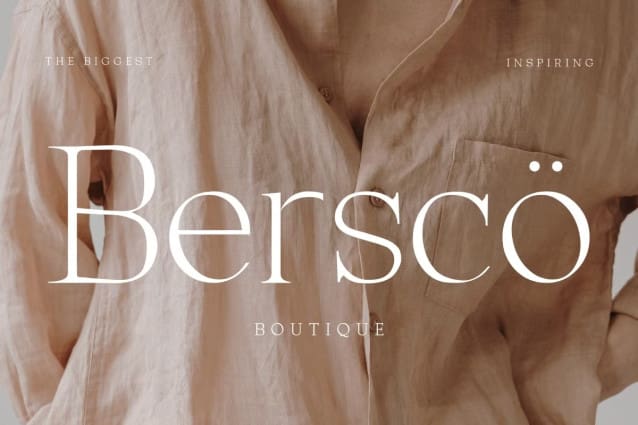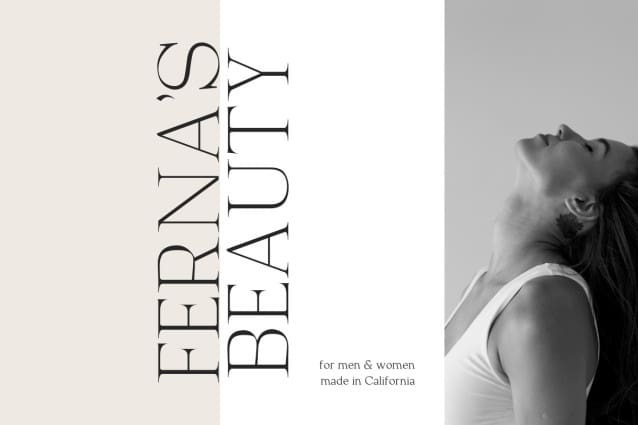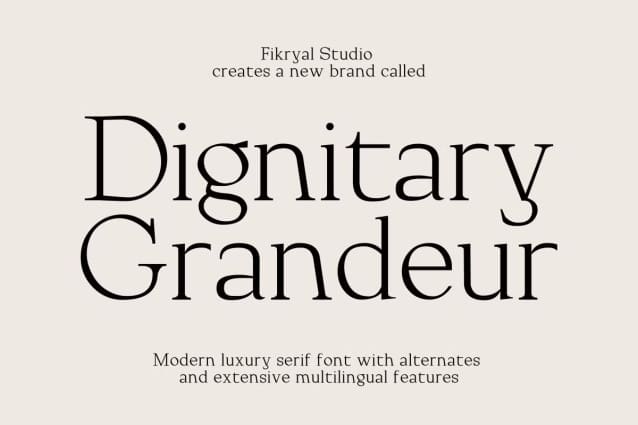
Dignitary Grandeur Font
Dignitary Grandeur Font is a modern serif font that exudes luxury and classic elegance. With three weight styles: Light, Regular, and Bold, this font offers flexibility for various design applications. It is perfect for branding, editorial work, formal invitations, or any project that requires a prestigious and upscale impression. Dignitary Grandeur also comes with alternates and extensive multilingual support, allowing users to create elegant and international designs.